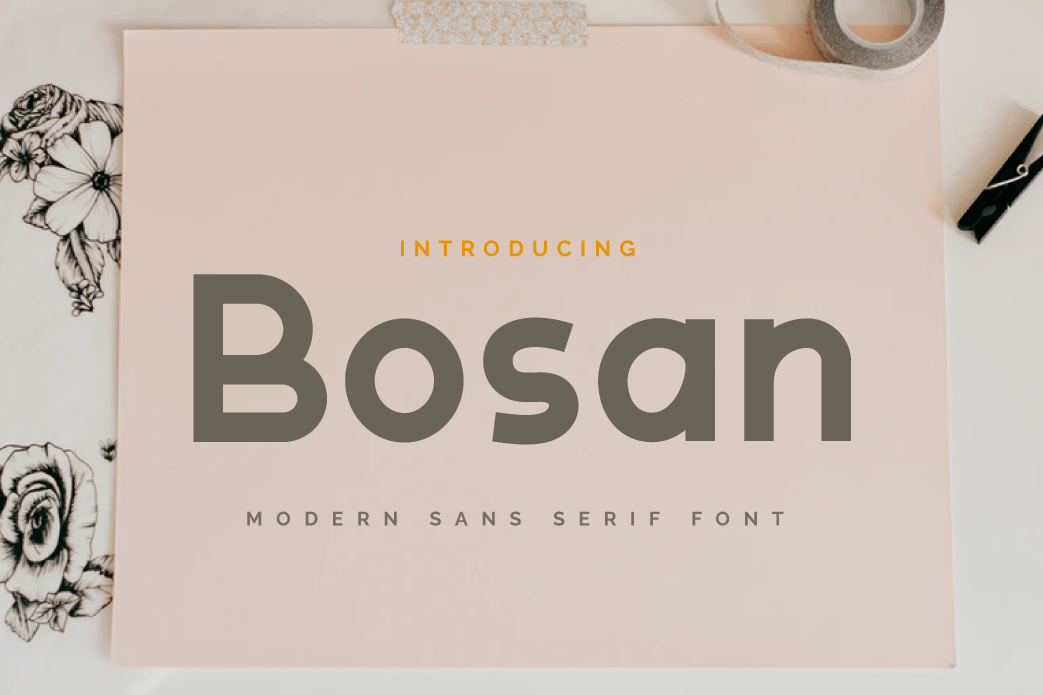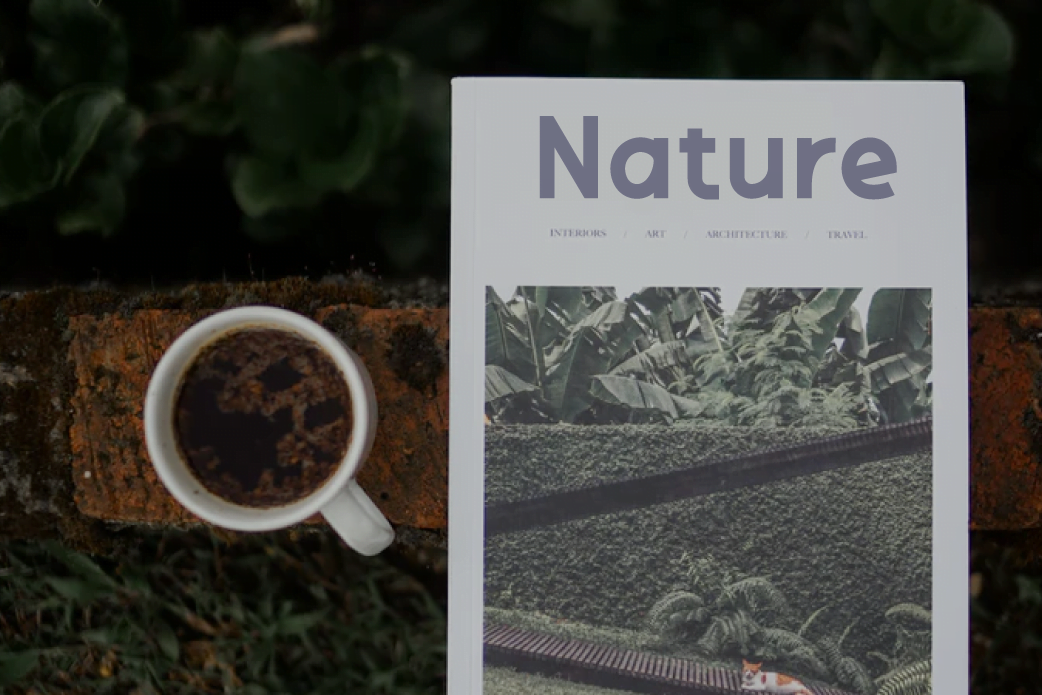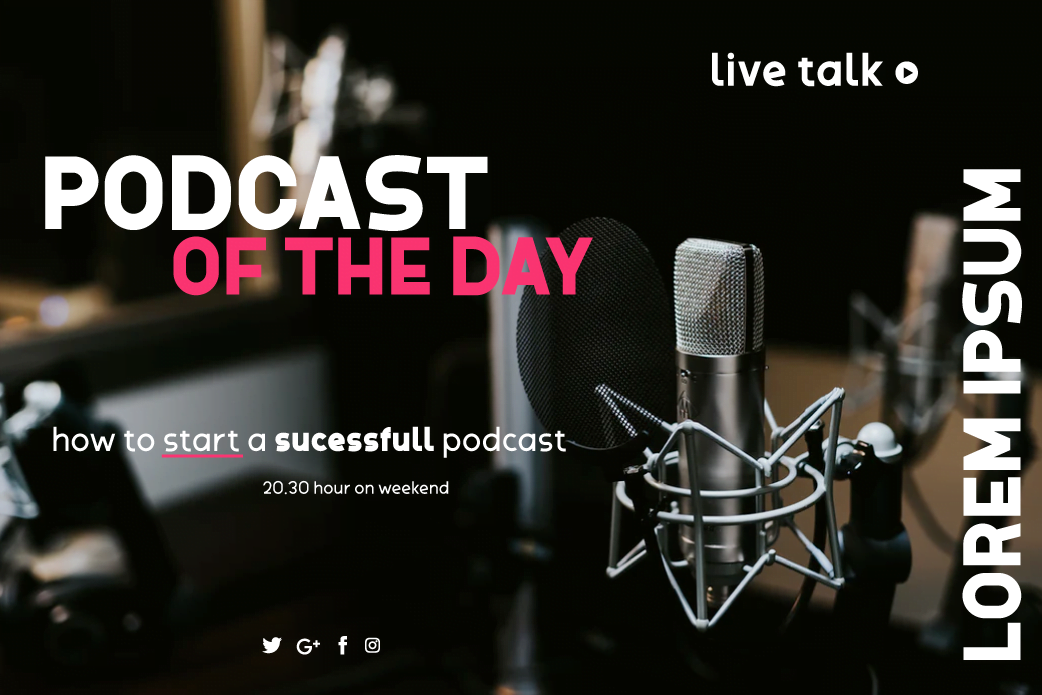
Bosan
Introducing Bosan, our newest san serif that offers beautiful typography for your project needs. type of font that is relaxed and elegant when used both for title words, sentences and other writing. will seem comfortable to look at when reading the contents of the message you want to convey.
This font is very suitable as text with displays for various kinds of branding, advertisements, posters, banners, packaging, news headlines, magazines, websites, logo design, banners, social media design and of course you can use a lot more.